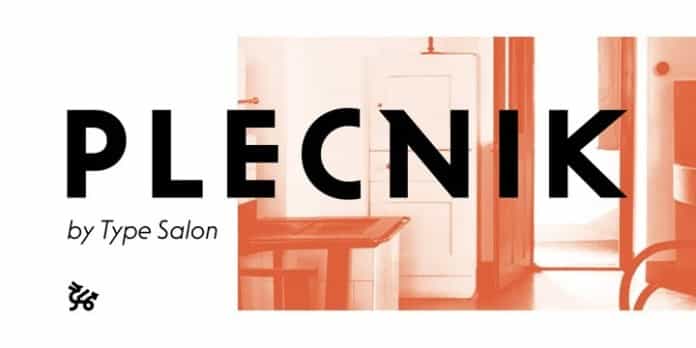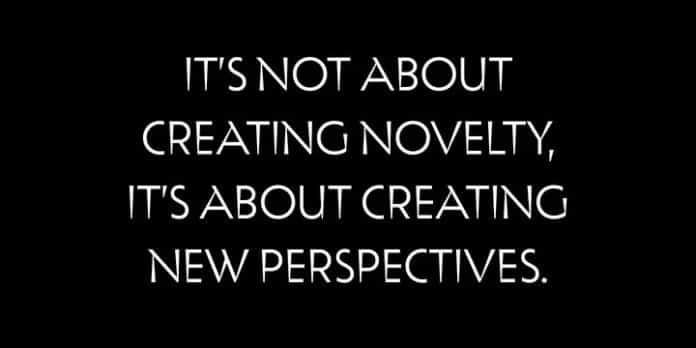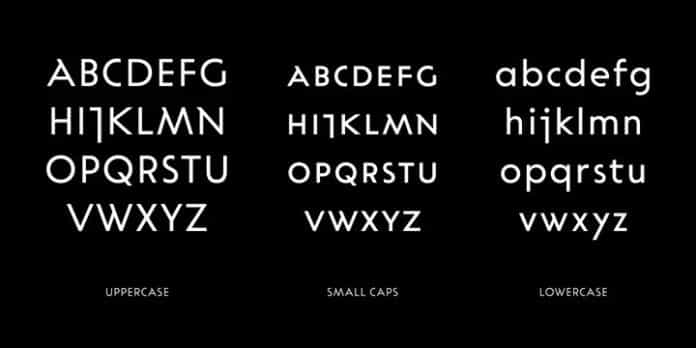
Plecnik Font
This typeface draws its inspiration from the core elements found within Joze Plecnik’s diverse and innovative graphic and architectural designs, and its unveiling reveals an invaluable part of Slovene’s rich and yet-unknown typographic heritage.